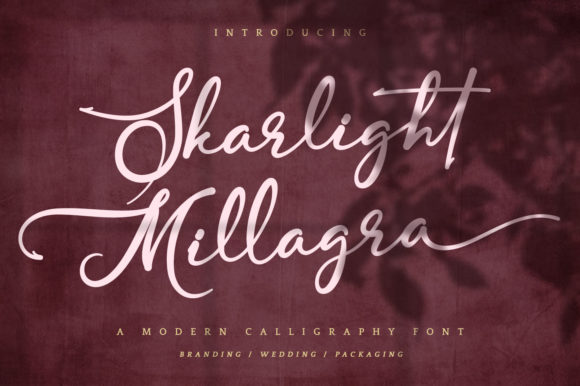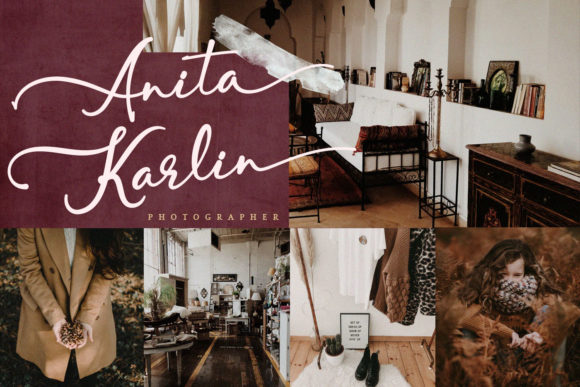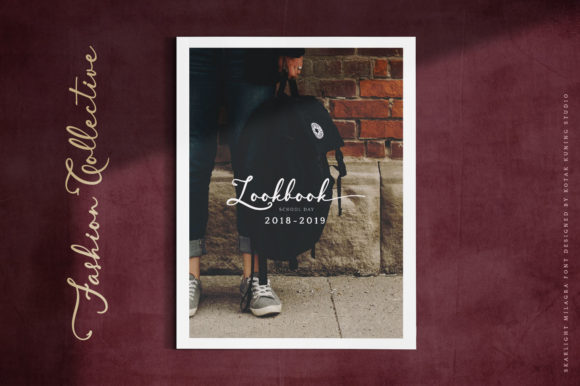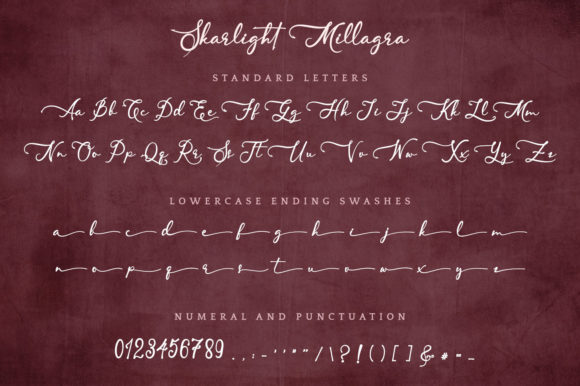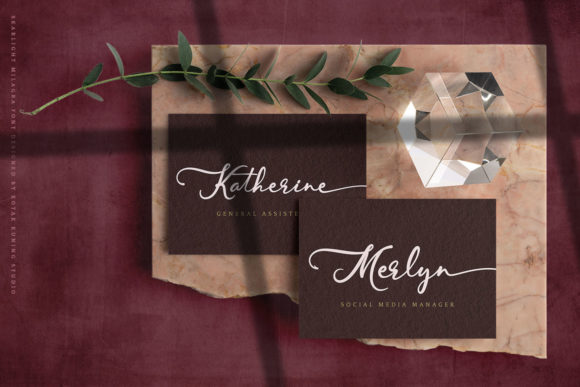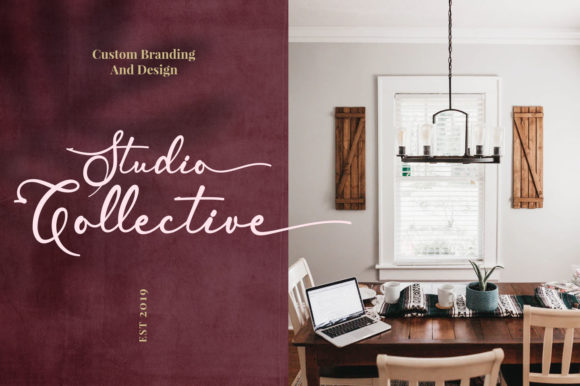
Skarlight Millagra Font
About Skarlight Millagra Font
Skarlight Millagra is a stunning handwritten font with fantastic swashes. It will add a dash of authenticity to any design idea!